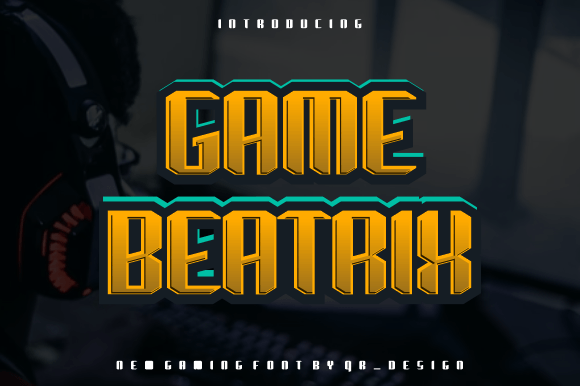
Welcome to the world of Game Beatrix Font, a captivating display font that will add a touch of boldness and authenticity to your creative projects. Dive into the realm of gaming with this font, meticulously designed to elevate your designs and leave a lasting impact.
Game Beatrix Font exudes confidence and individuality, making it the perfect choice for those seeking to make a statement. Its striking lines and distinct character create a visually captivating experience that demands attention. Whether you're designing a captivating logo, creating eye-catching t-shirt designs, or crafting an immersive gaming experience, Game Beatrix Font is your trusted companion.
With its versatility and adaptability, Game Beatrix Font seamlessly integrates into a multitude of contexts. Its inherent charm and distinct style make it suitable for a diverse range of projects, from branding initiatives and esport designs to captivating posters and social media graphics. Unleash your creativity and let Game Beatrix Font amplify your message, leaving a trail of admiration in its wake.
But what truly sets Game Beatrix Font apart is its ability to evoke emotions and forge connections. Its bold and authentic presence commands attention, while its underlying strength conveys a sense of reliability and trustworthiness. Whether you're aiming to inspire awe, spark intrigue, or establish a connection with your audience, Game Beatrix Font possesses the power to make it happen.
With its captivating aesthetics and versatility, Game Beatrix Font is more than just a font; it's an artistic force that empowers you to transform your creative visions into tangible realities. Its user-friendly format ensures effortless integration into your design workflow, allowing you to focus on what matters most - creating captivating designs that resonate with your audience.
So, embark on this creative journey with Game Beatrix Font, a font that will unleash your imagination and transform your designs into masterpieces. Embrace the boldness, authenticity, and emotional impact that this font brings, and watch as your creative endeavors soar to new heights.